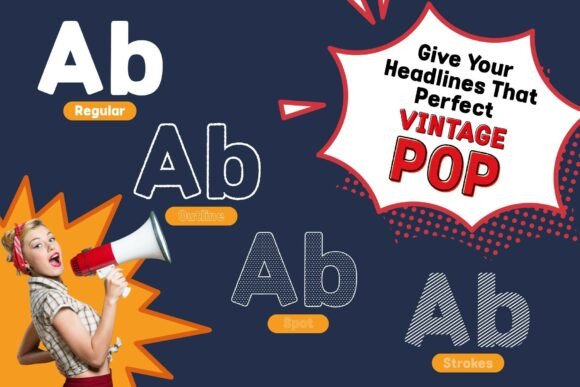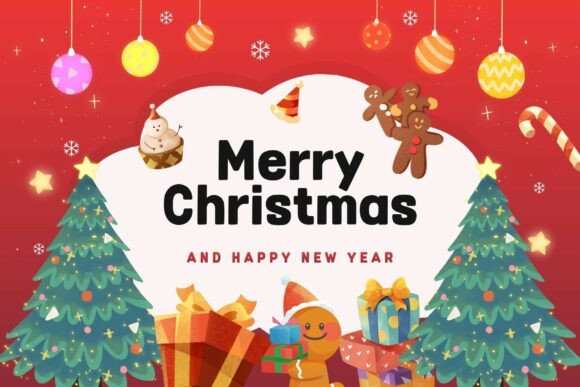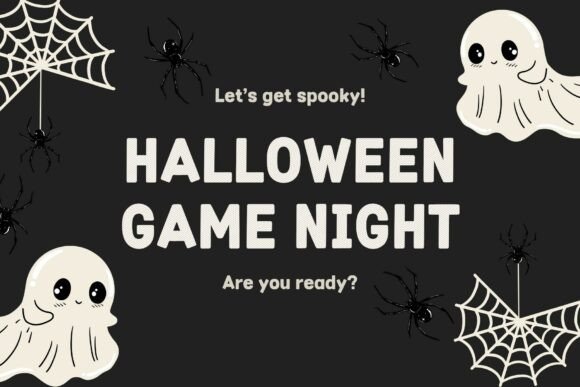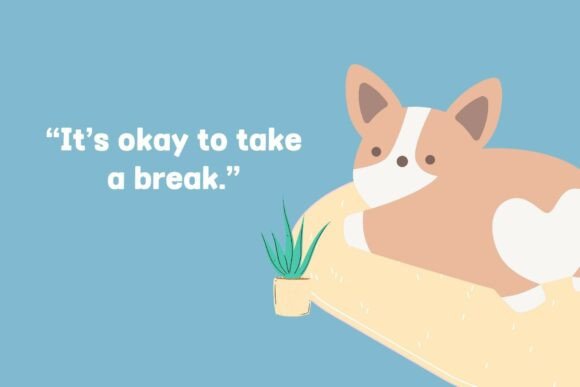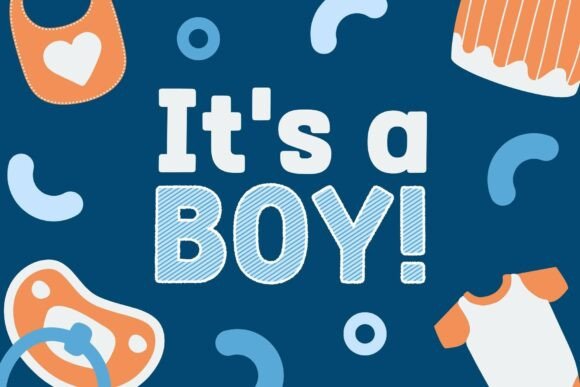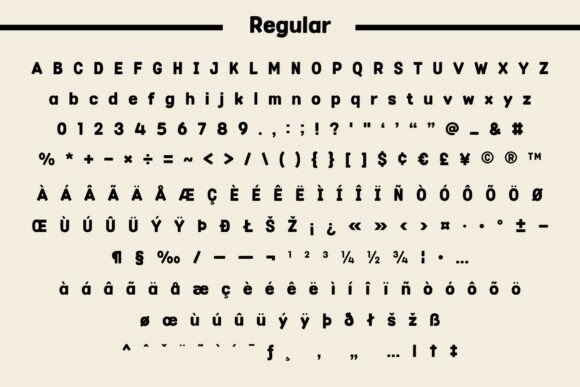
Unleash the Fun with Fox Diablo Font: A Playful Display Font Family
Have you ever been working on a design project, and suddenly, it feels like something’s missing? You’re trying to convey a sense of fun and energy, but your font just isn’t cutting it. I recall a project where I was tasked with creating a children’s book, and I struggled to find the perfect font that would capture the playful spirit of the story. That’s when I discovered the Fox Diablo font, and it completely transformed my design.
The Birth of Fox Diablo
The Fox Diablo font family was designed to bring a captivating burst of fun and energy into your designs. Its creator, a talented type designer, aimed to craft a font that would be perfect for grabbing attention and bringing a happy, youthful vibe to any project. With its bold shapes, rounded edges, and vibrant personality, Fox Diablo is ideal for projects aimed at children, making it perfect for educational materials, toys, games, and apparel.
What I Love About Fox Diablo
Here’s what makes Fox Diablo a standout font family:
• ✨ Playful and energetic vibe: Fox Diablo’s bold shapes and rounded edges make it perfect for designs that need to convey enthusiasm and excitement.
• ✅ Versatile toolkit: The font family comes with 4 distinct font styles: Regular, Strokes, Outline, and Spot, giving you plenty of options for your designs.
• 🎉 Bubbly and approachable design: Fox Diablo’s design is ideal for projects aimed at children, making it perfect for educational materials, toys, games, and apparel.
• 🔍 Bold weight: The bold weight ensures your headlines, titles, and logos are impossible to ignore.
While Fox Diablo is an amazing font family, there are a few things to keep in mind:
• 🤔 Limited use in formal contexts: Due to its playful nature, Fox Diablo might not be the best choice for formal or professional projects.
• ⚠️ Legibility at small sizes: As with many display fonts, Fox Diablo might not be legible at very small sizes, so it’s best to use it at larger sizes for optimal impact.
The Fox Diablo font was inspired by the designer’s love of playful and energetic typography. Growing up, the designer was fascinated by the bold and colorful fonts used in children’s books and toys. They wanted to create a font that would capture that same sense of fun and energy, while also being versatile and easy to use.
What is Fox Diablo font best used for? Fox Diablo is best used for designs that need to convey enthusiasm, excitement, and a touch of whimsy, such as children’s books, educational materials, toys, games, and apparel.